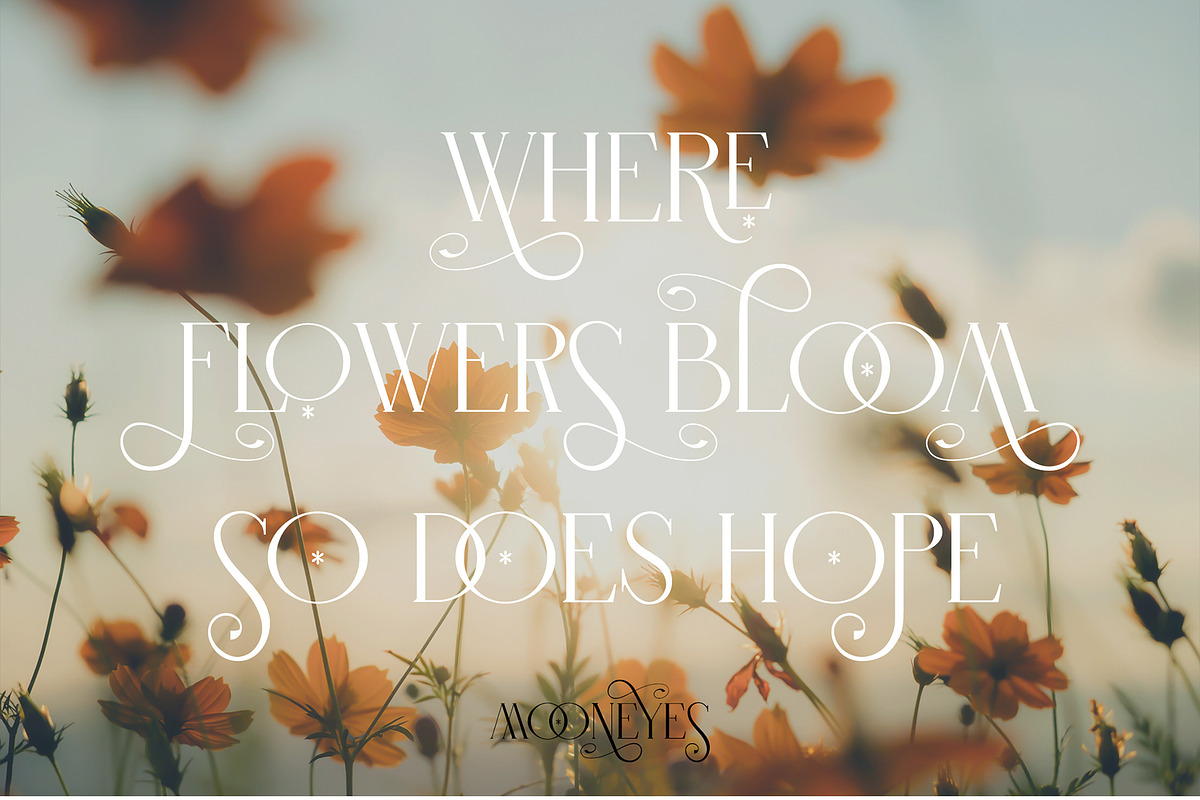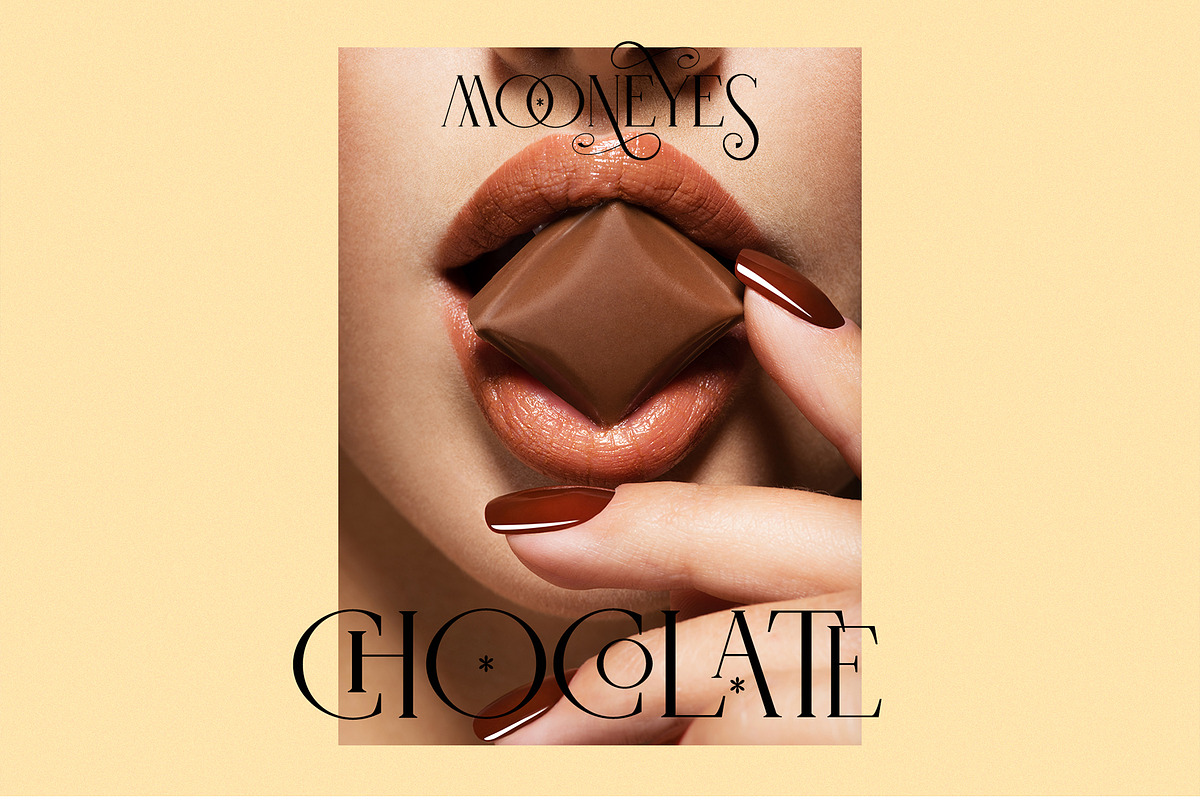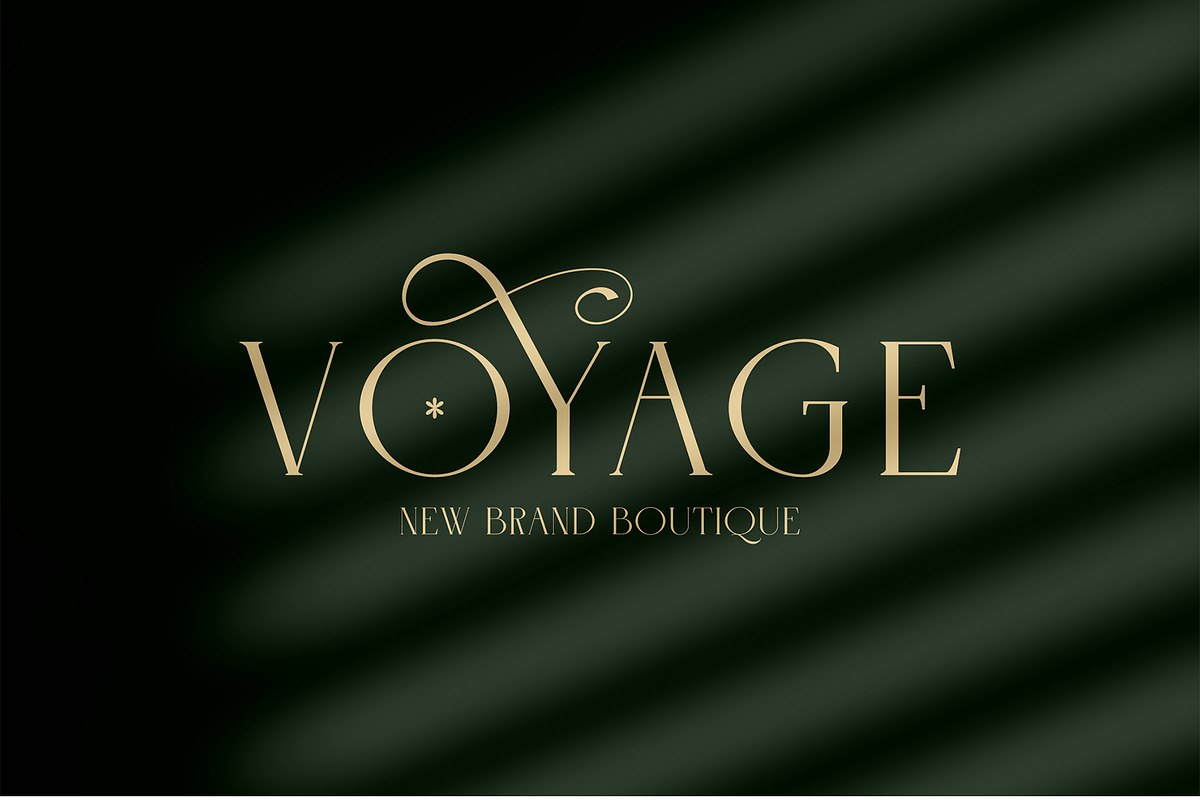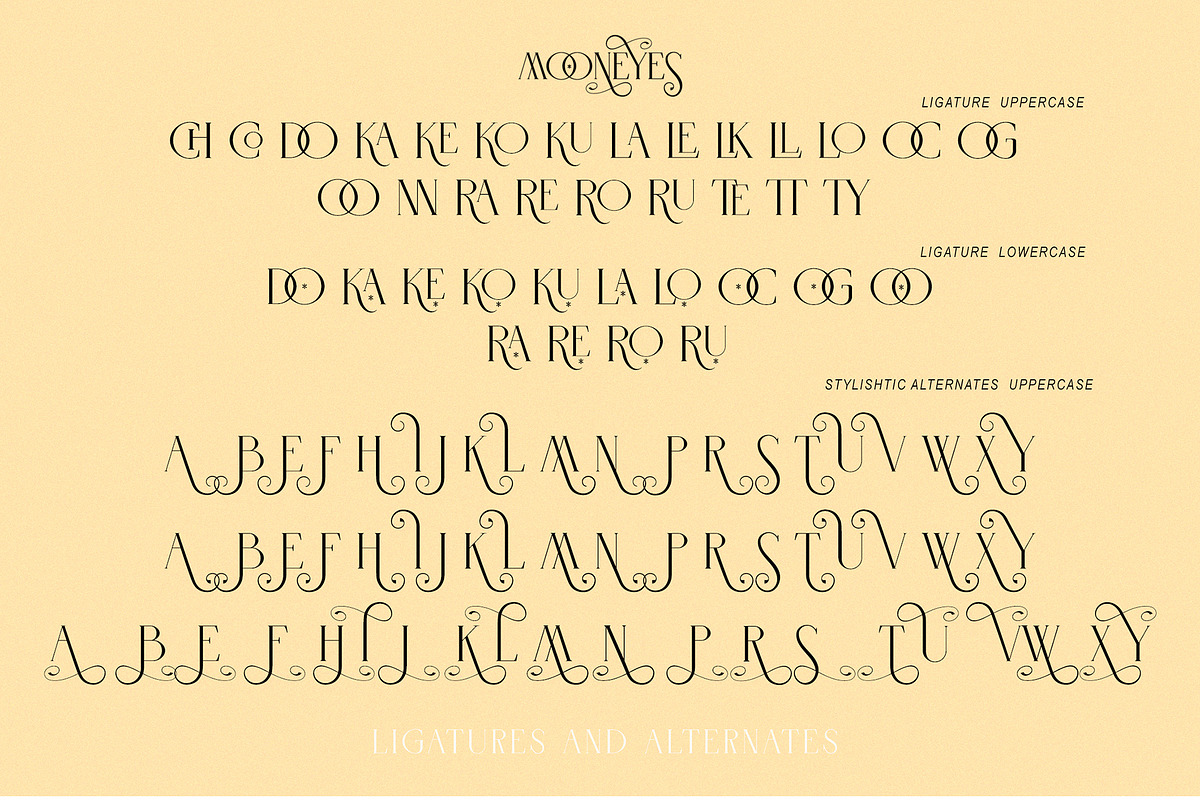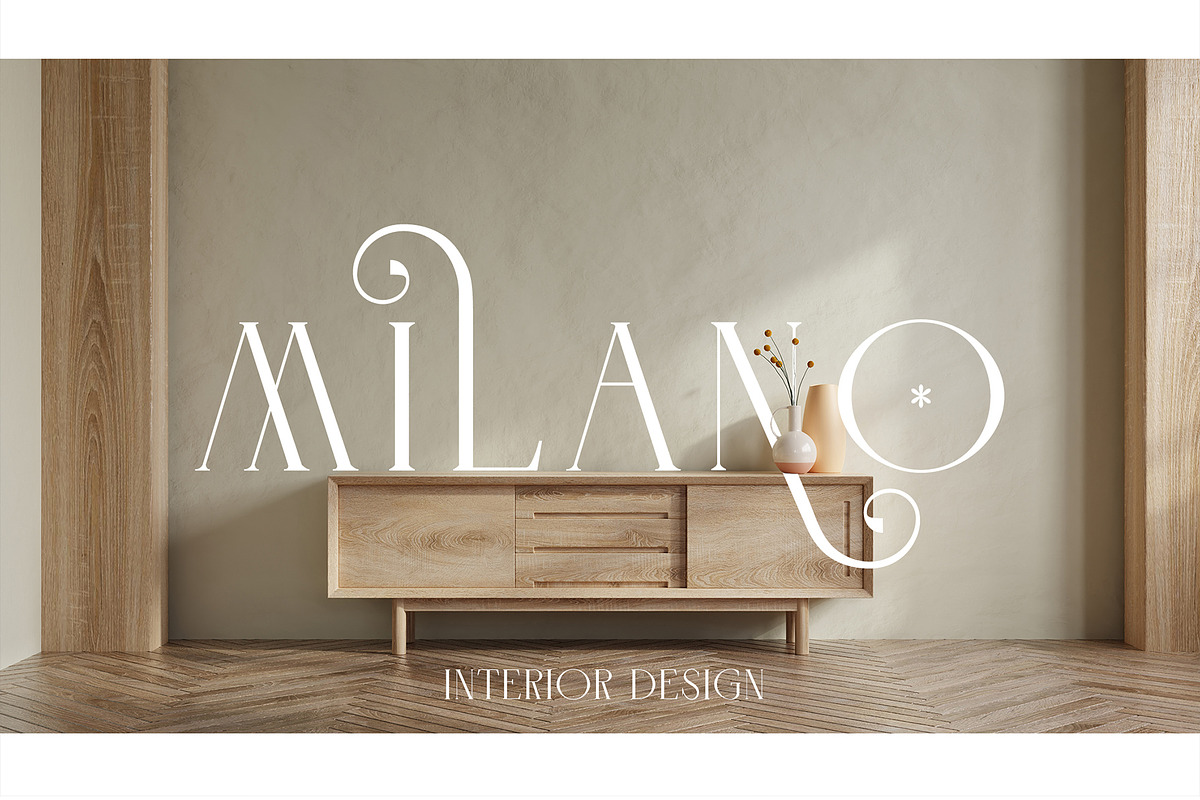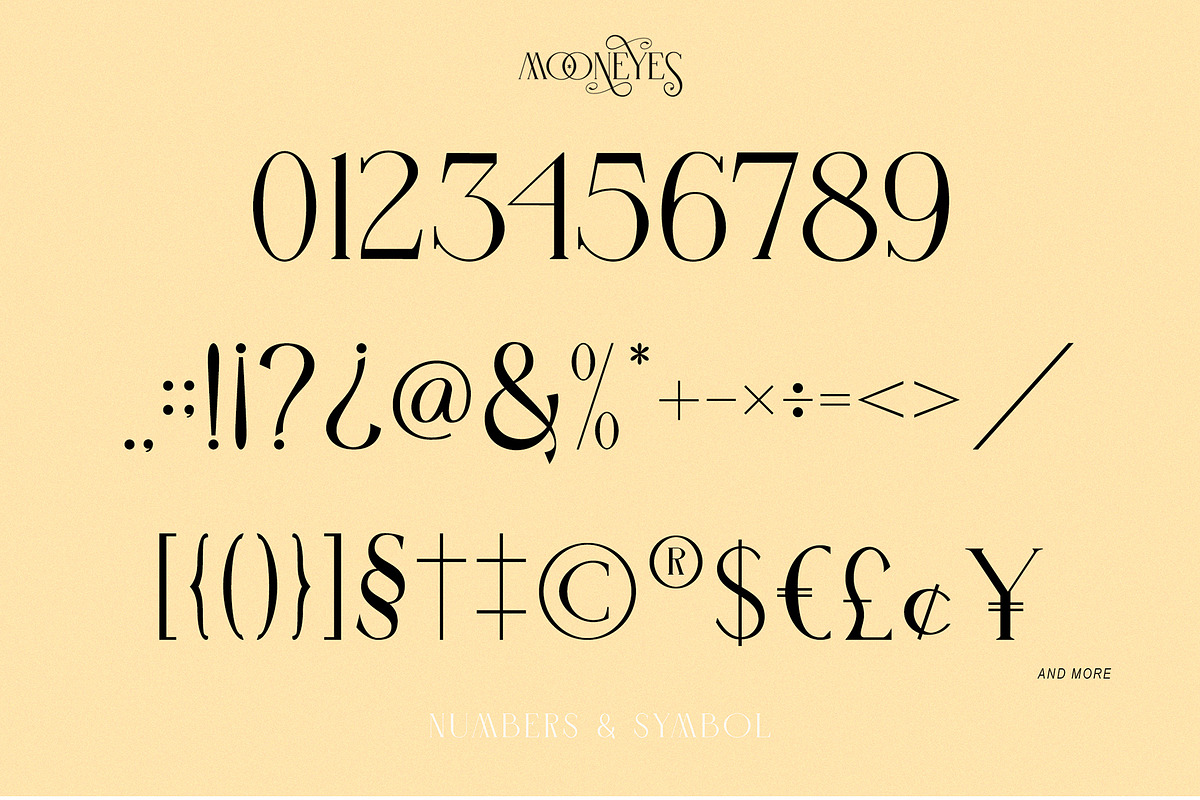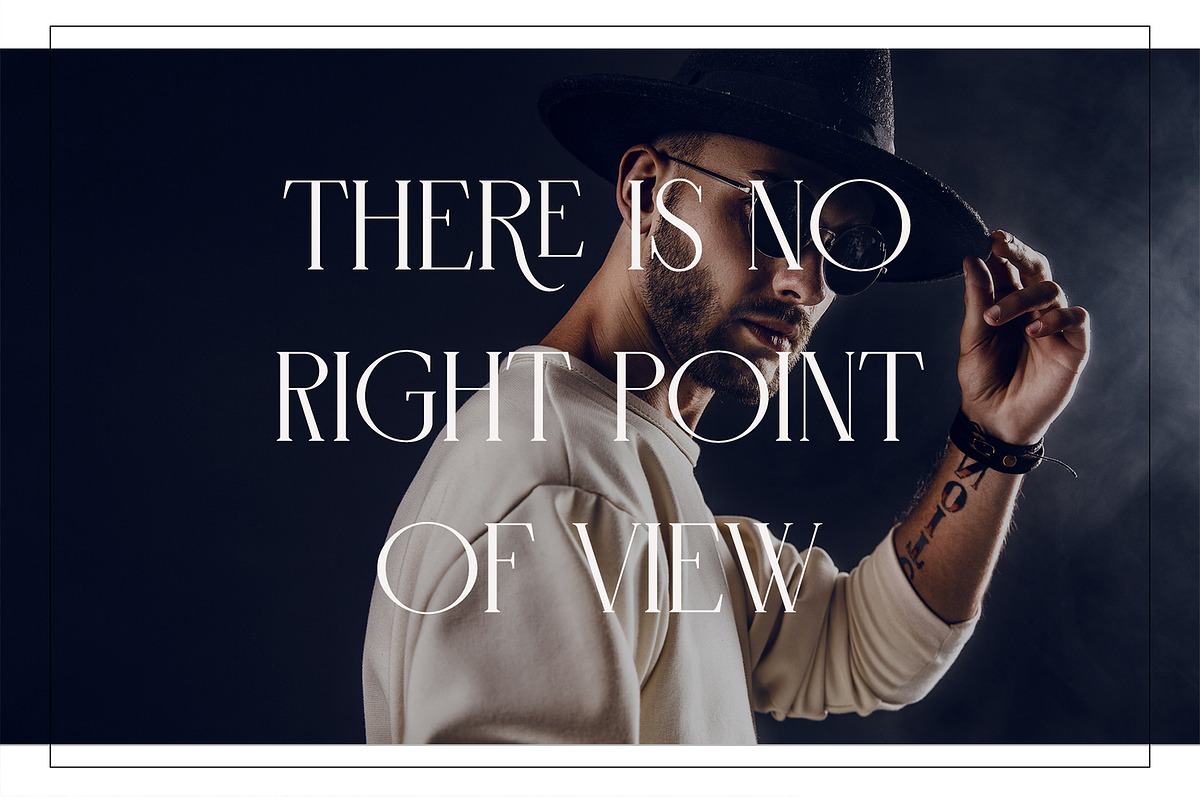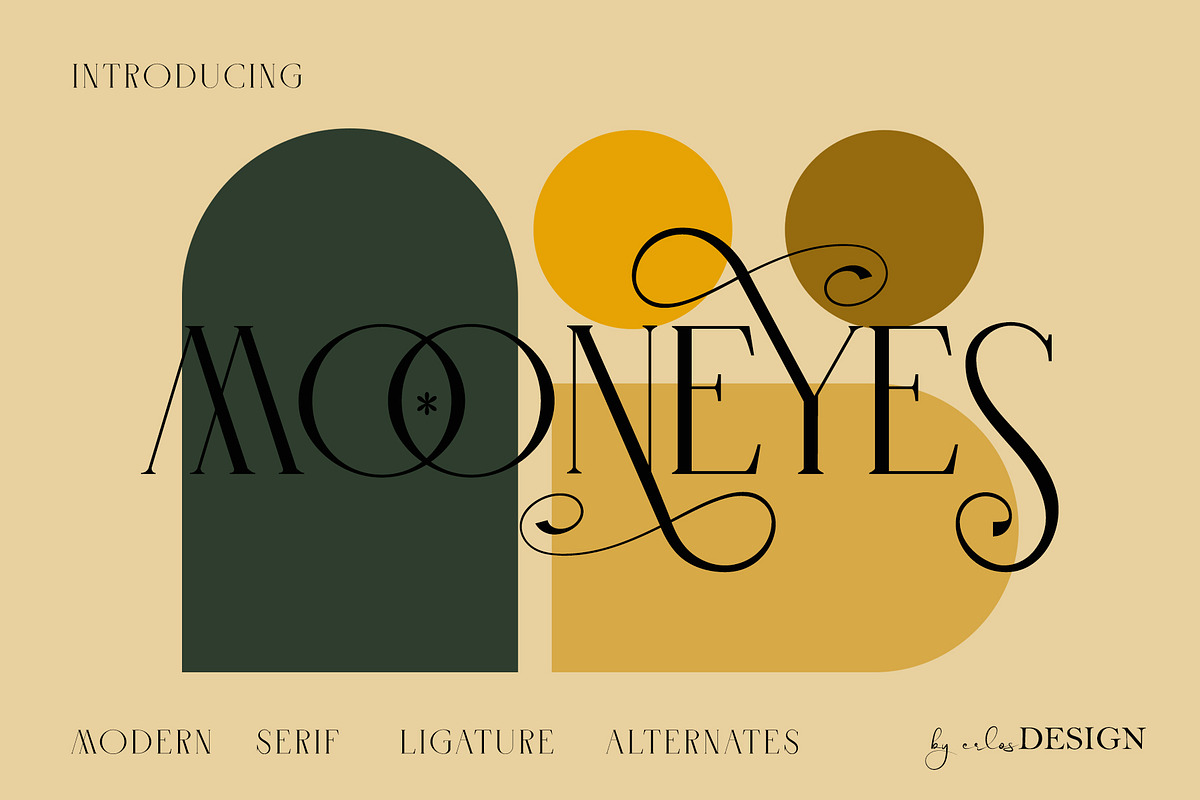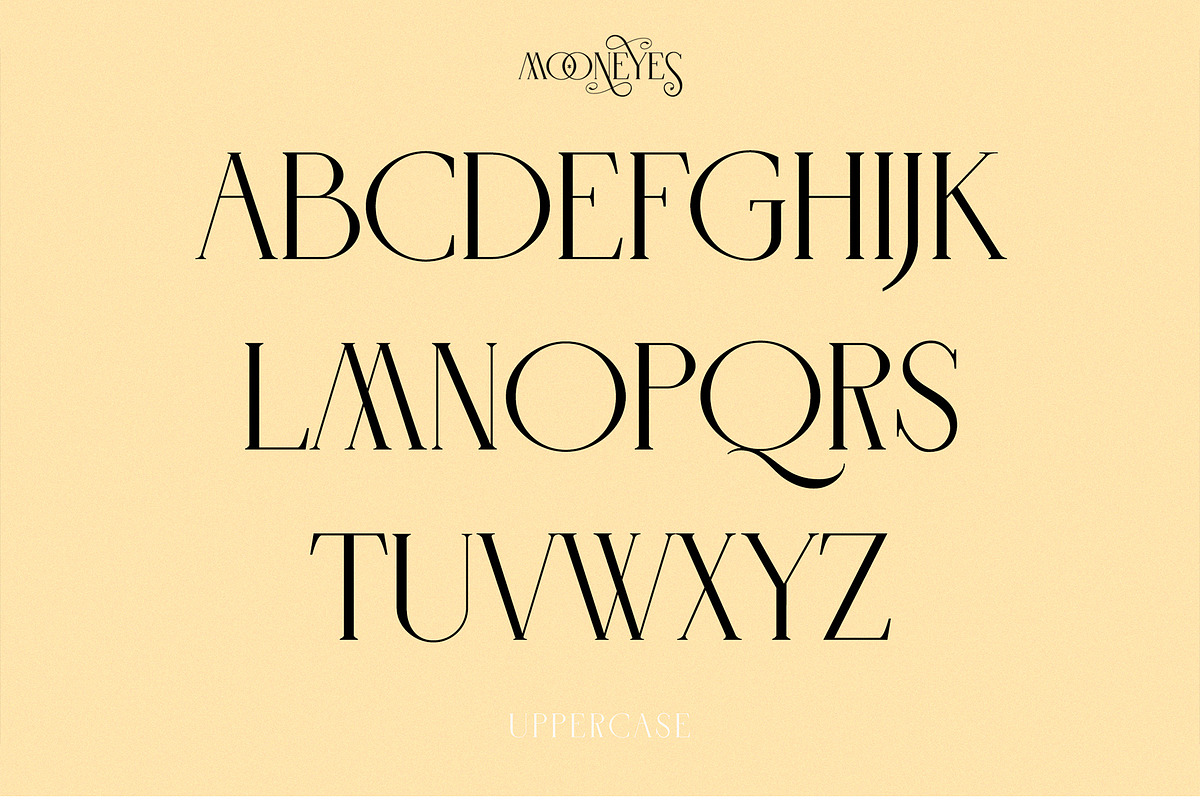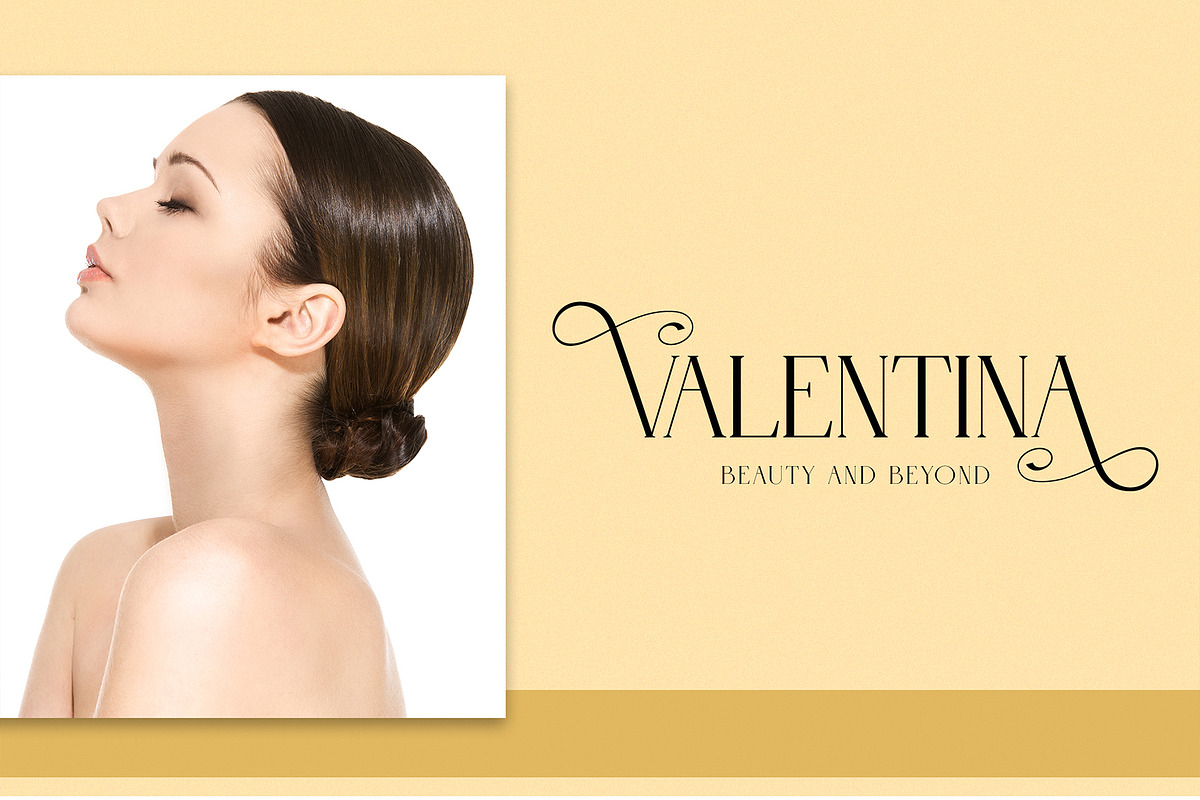
MOONEYES - Modern Serif
MOONEYES - Modern Serif by erlosDESIGN
MOONEYES is an elegant and thin, lettered serif font. Trendy and stylish, this font will elevate each of your creations. MOONEYES is PUA encoded, which means you can access all of the glyphs and swashes with ease!